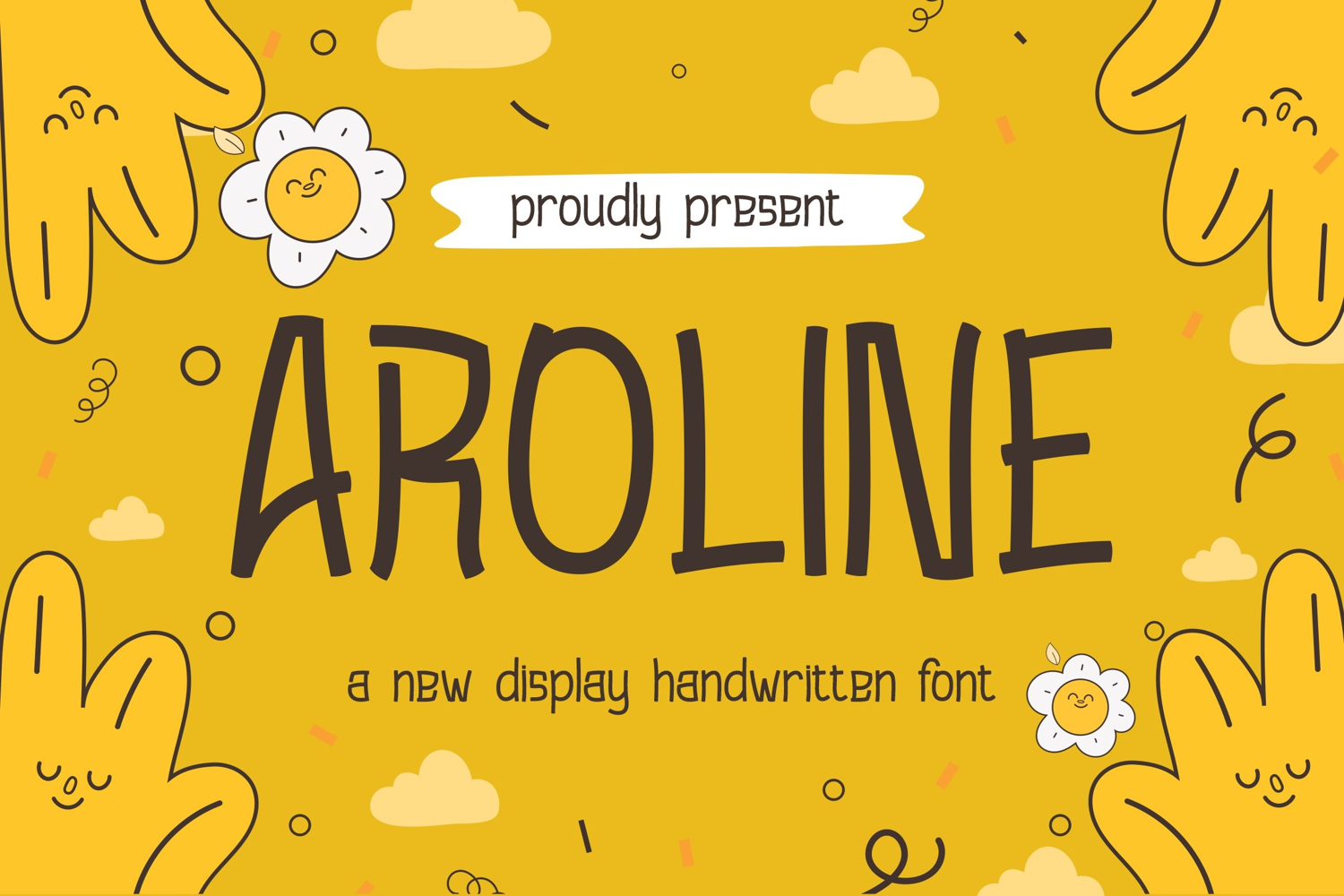
Aroline || Modern Playful Handwritten Font
Aroline
Aroline handwritten display is a modern and playful font type for all branding and logo designs. This modern and playful display font has a beautiful character. This font is suitable for invitation card designs, cool logos, movie titles, movie names, business cards, book titles, brand names, and various other designs. Aroline handwritten display is a smooth display font that exudes sophistication and the moment. Its stylish ligatures make this font a perfect partner for any project.
- Ligature
- Uppercase and lowercase
- Numbering and Punctuation